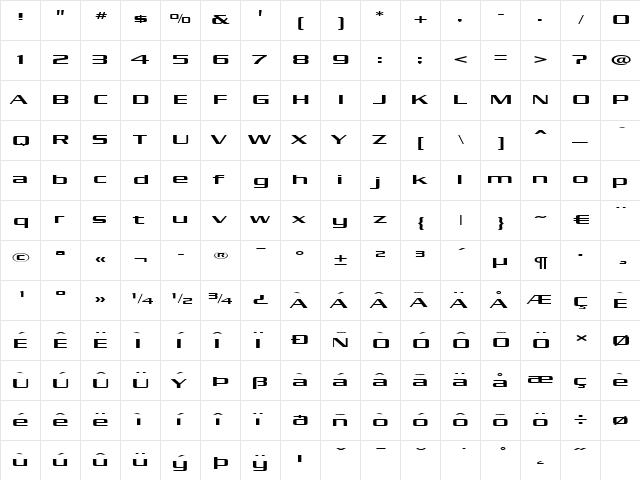
Kubra_medium Kubra_medium
| Designer | Ersenak Xtreme |
Design Context for Kubra_medium Typeface
Kubra_medium is a composed and adaptable typeface that performs quietly and consistently across a wide range of design contexts.